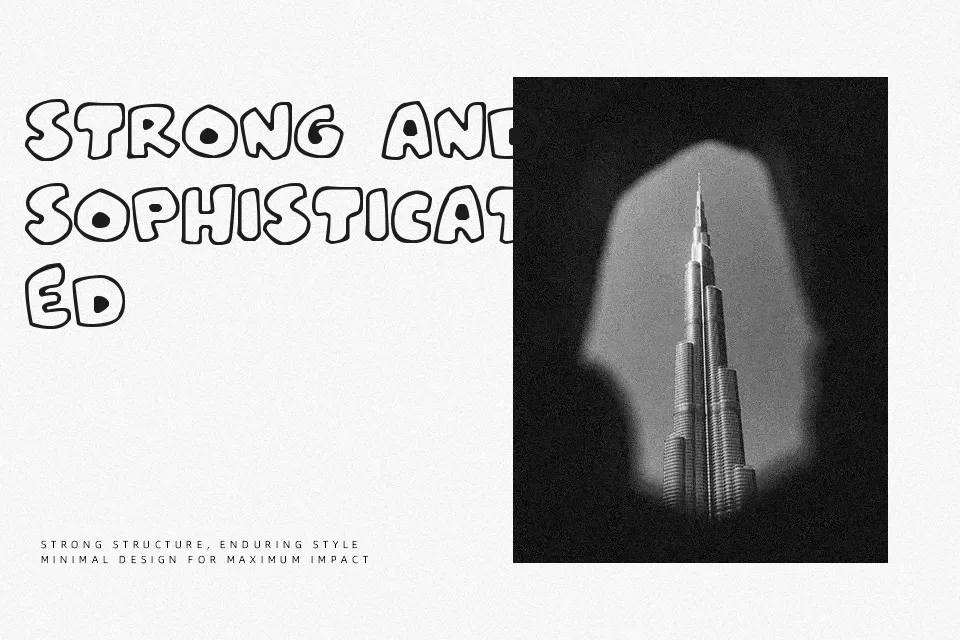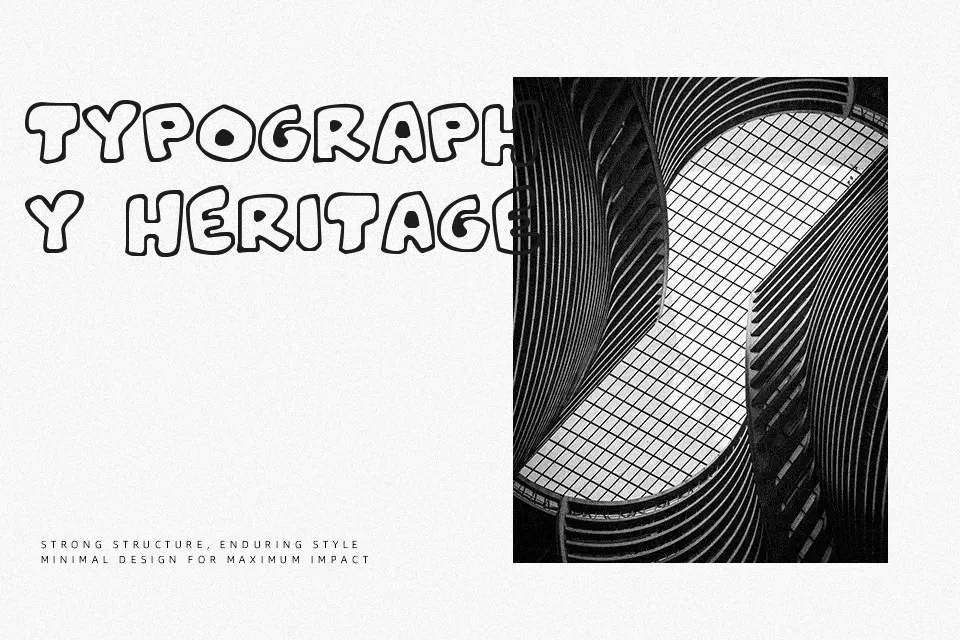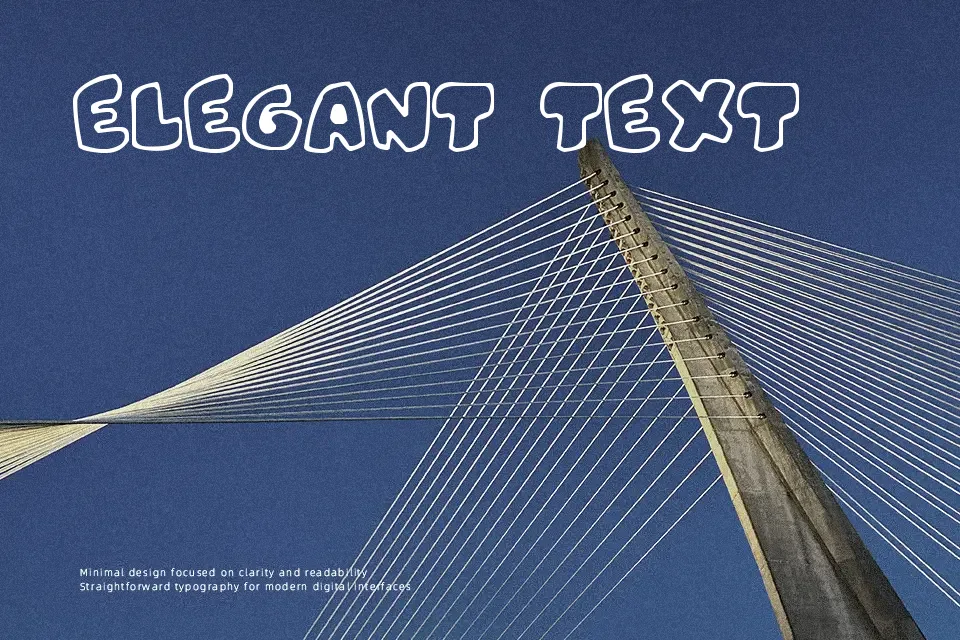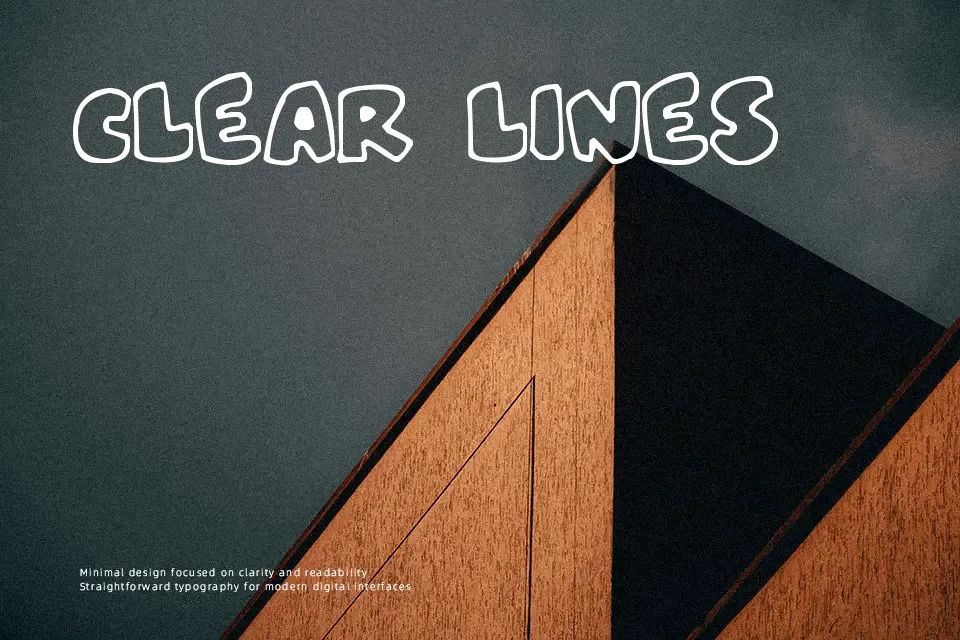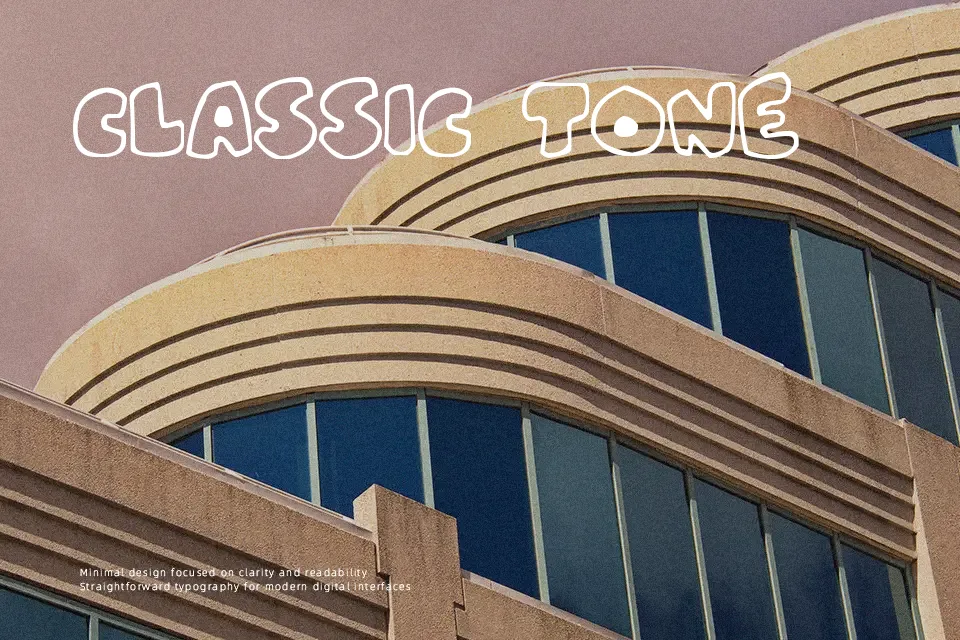
Snowblobs Font
Snowblobs Font uses thick, rounded forms and irregular blob-like contours to create a soft cartoon display look. Its broad shapes and low stroke contrast give short words a clear, substantial presence, especially in large headlines and simple layouts. The letterforms suit children’s artwork, cheerful event graphics, and playful product labels more naturally than formal design work. Spacing appears open enough to keep individual characters distinct at display sizes. The design is most effective when used sparingly; its unusually soft outlines become less comfortable to read in small text or extended passages.
Best For: kids’ party invitations,children’s poster headlines,playful product packaging,social media graphics
Perfect for headline, kids, and packaging, with a cute and cartoon style.